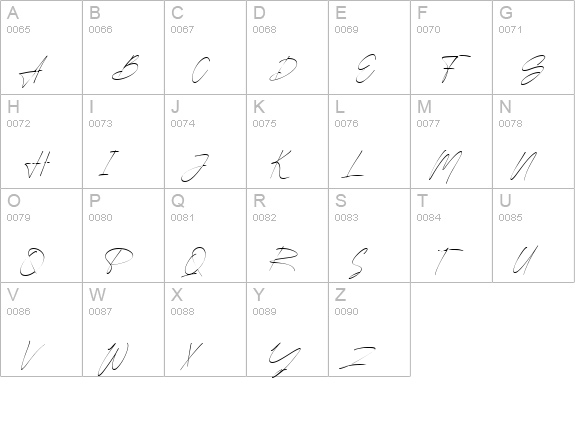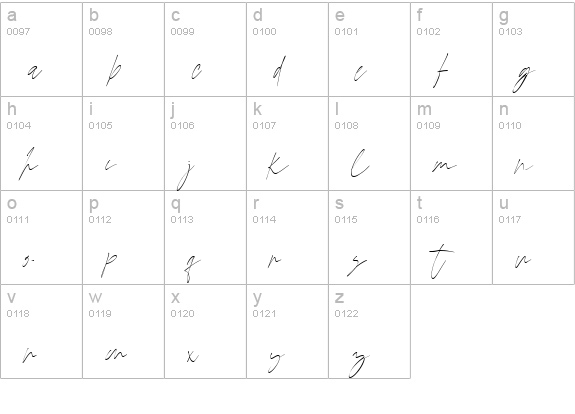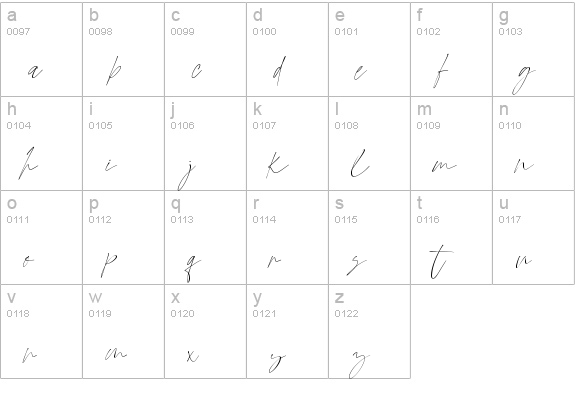
Arington | Vintage Signature Script Font Details
Arington | Vintage Signature Script font is a beautiful and elegant typeface that exudes charm and sophistication. With its flowing lines and delicate curves, this font captures the essence of vintage handwriting with a modern twist. The graceful strokes and intricate details make Arington perfect for various design projects, from invitations to branding to packaging.
What sets Arington apart is not only its timeless appeal but also its versatility. Whether you're looking to add a touch of elegance to your wedding invitations or create a classic look for your logo design, Arington is sure to impress. Its unique aesthetic will elevate any project and give it a touch of sophistication.